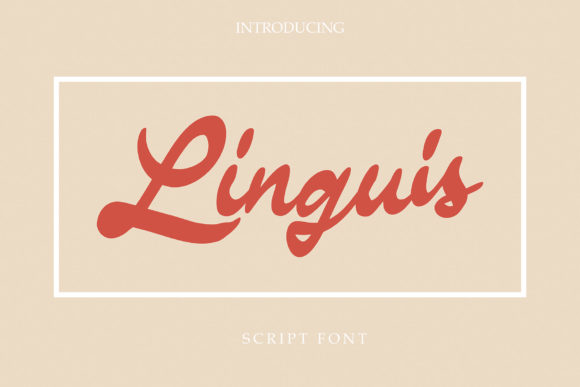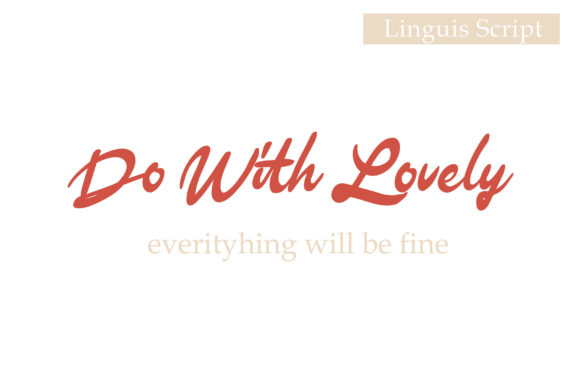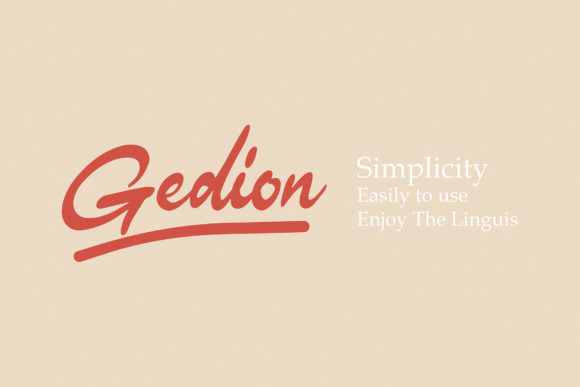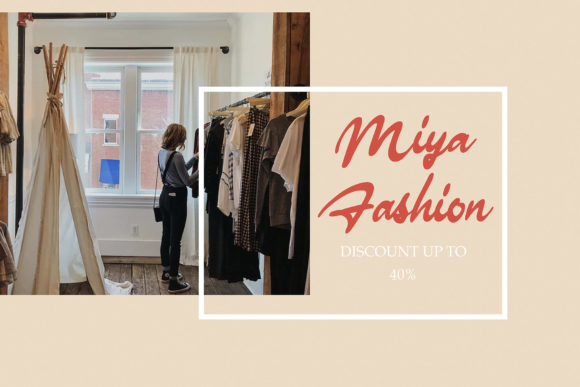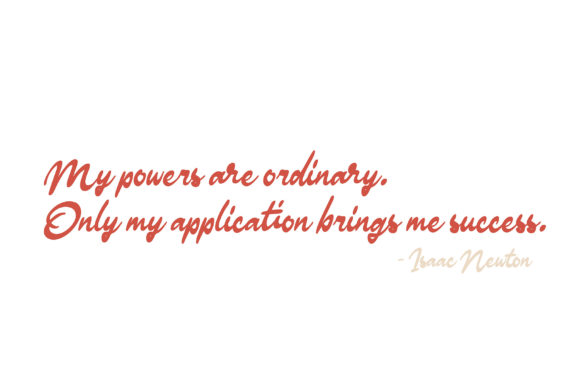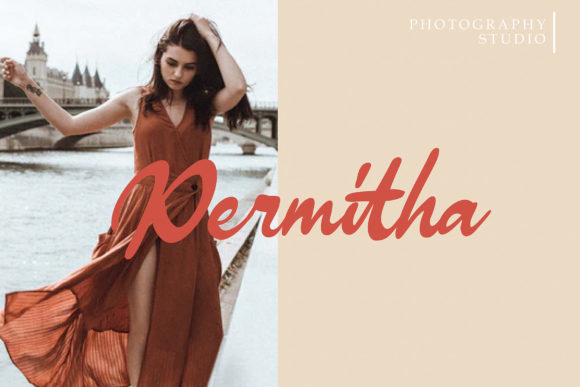
Linguis Font
About Linguis Font
Linguis is a stylish, adept and flowing script font. It looks lovely on invitations, thank you cards, quotes, greeting cards, logos, business cards and much more.